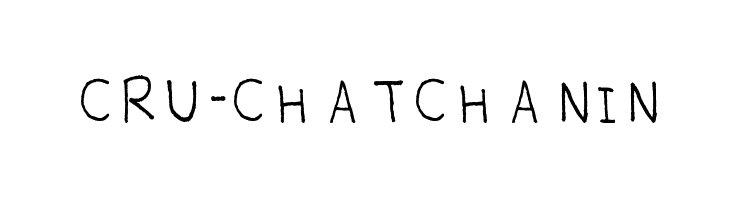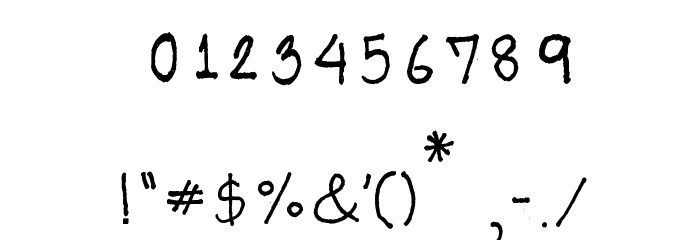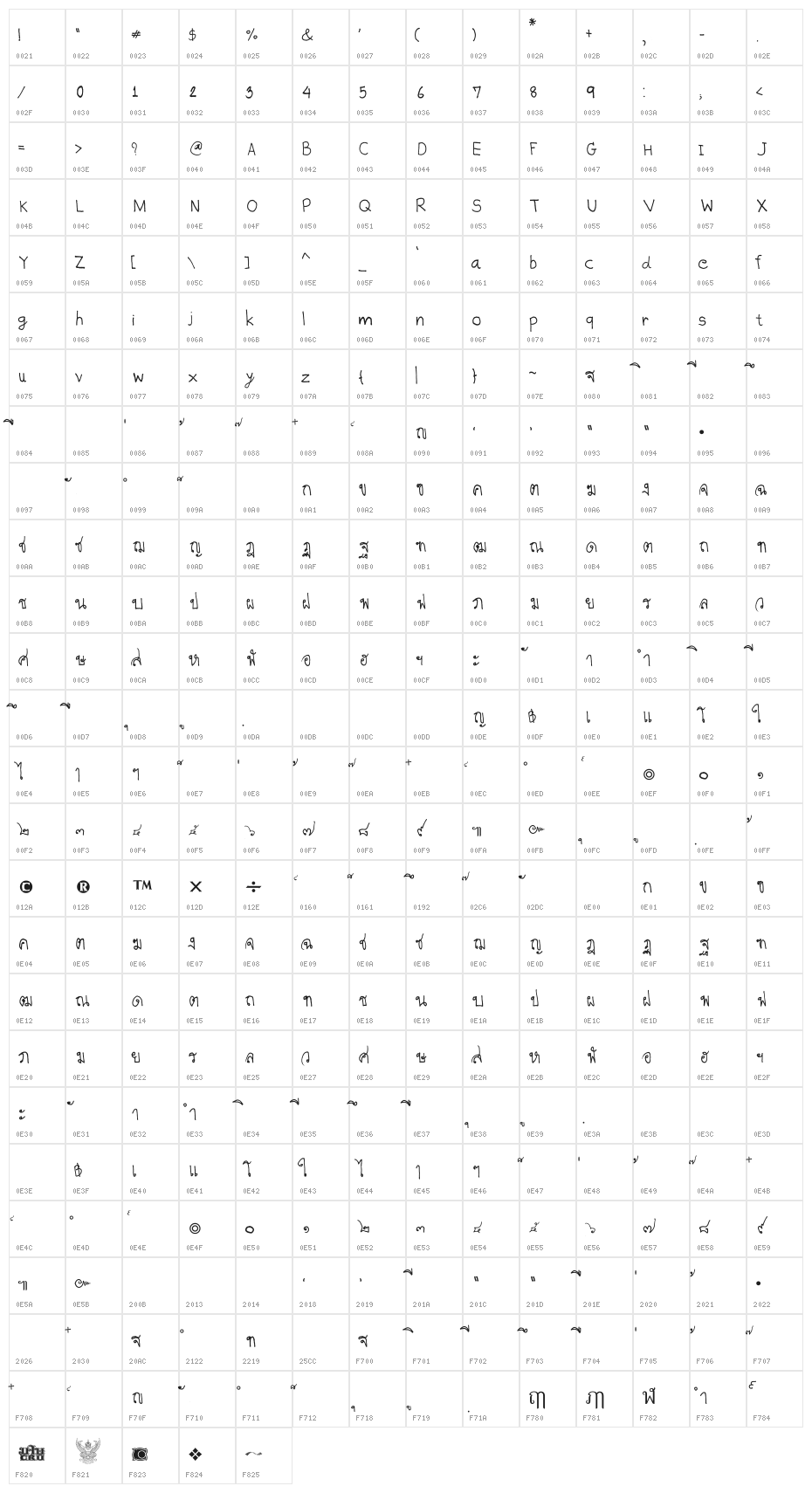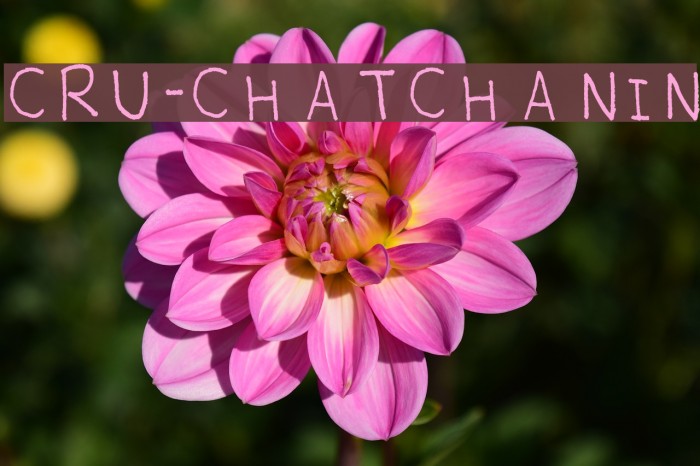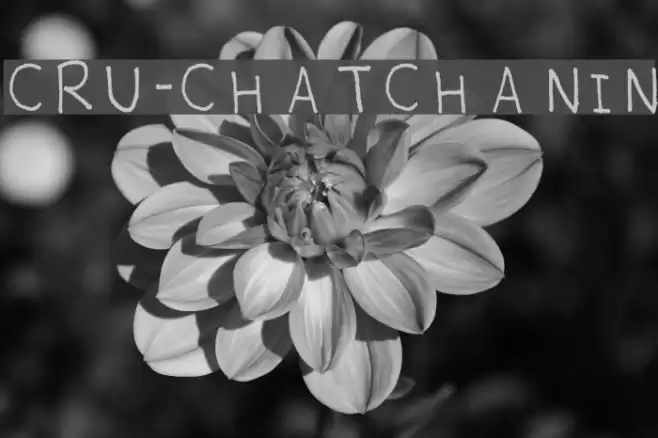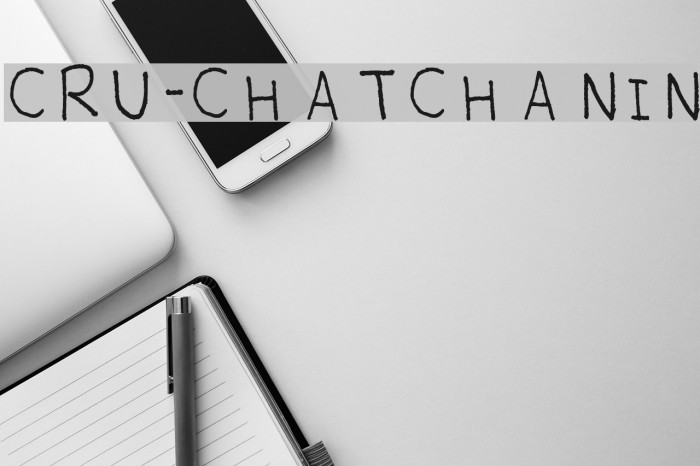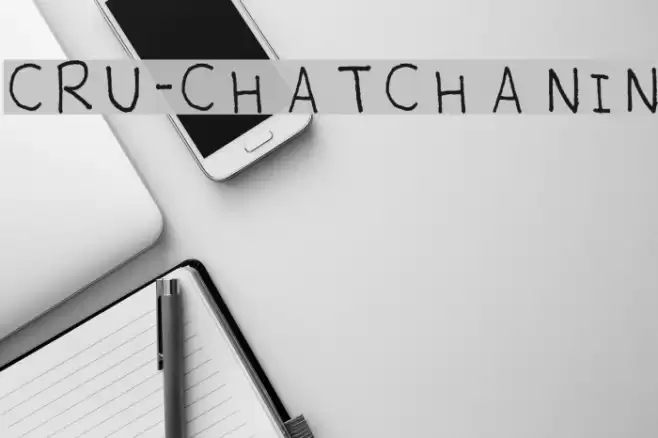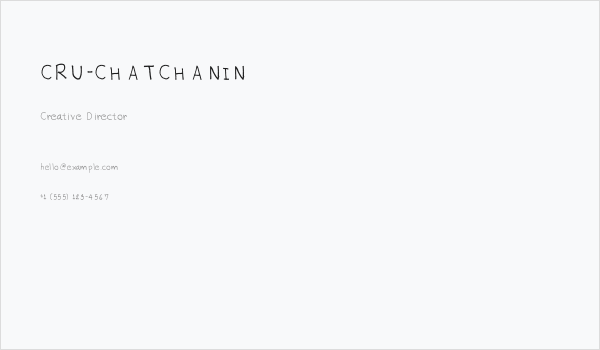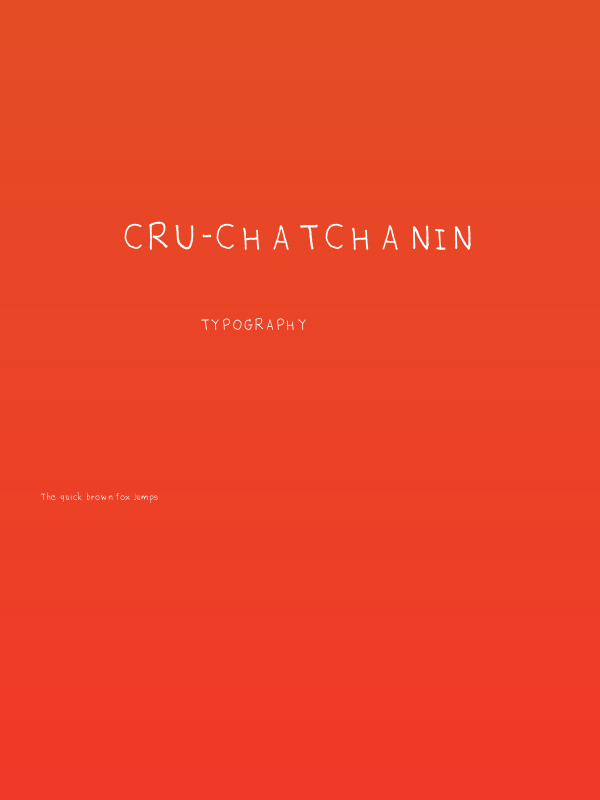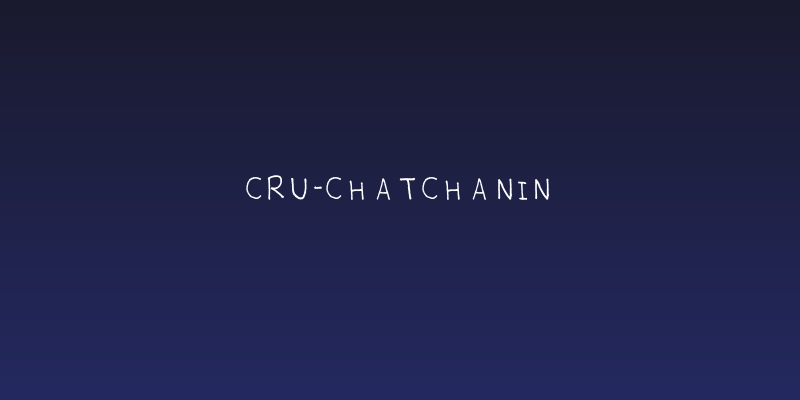
CRU-CHATCHANIN Font
CRU-CHATCHANIN Description
This font features a playful, handwritten style with irregular, slightly wobbly lines that give it a casual and friendly appearance. The uppercase letters are bold and prominent, while the lowercase letters maintain a consistent flow with a slightly smaller size. Numbers and special characters are designed to match the overall informal aesthetic, making them easy to read while retaining the font's unique charm. The strokes are uneven, adding to the hand-drawn feel, and the overall design is approachable and versatile.
| Proposed Projects | Ideal for children's books, greeting cards, informal invitations, and creative projects that require a personal touch. |